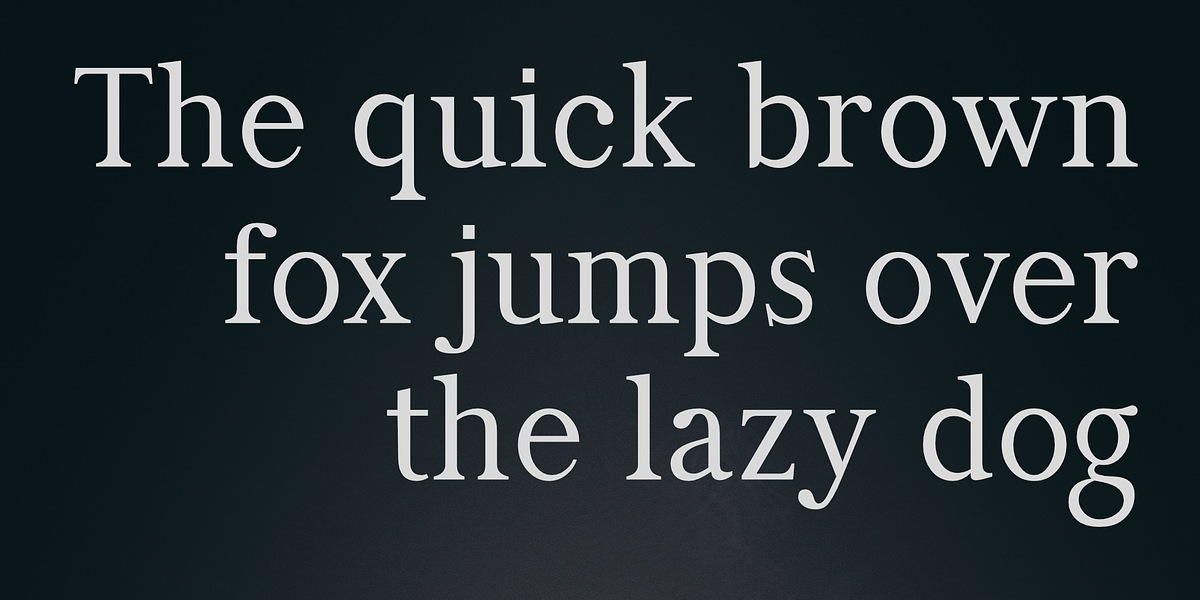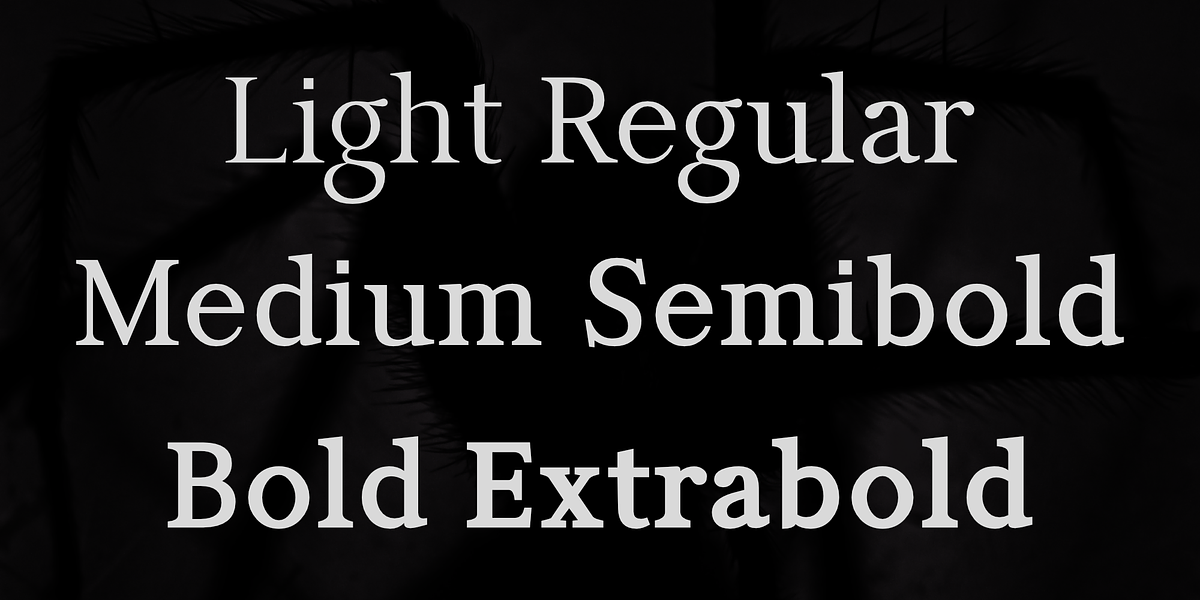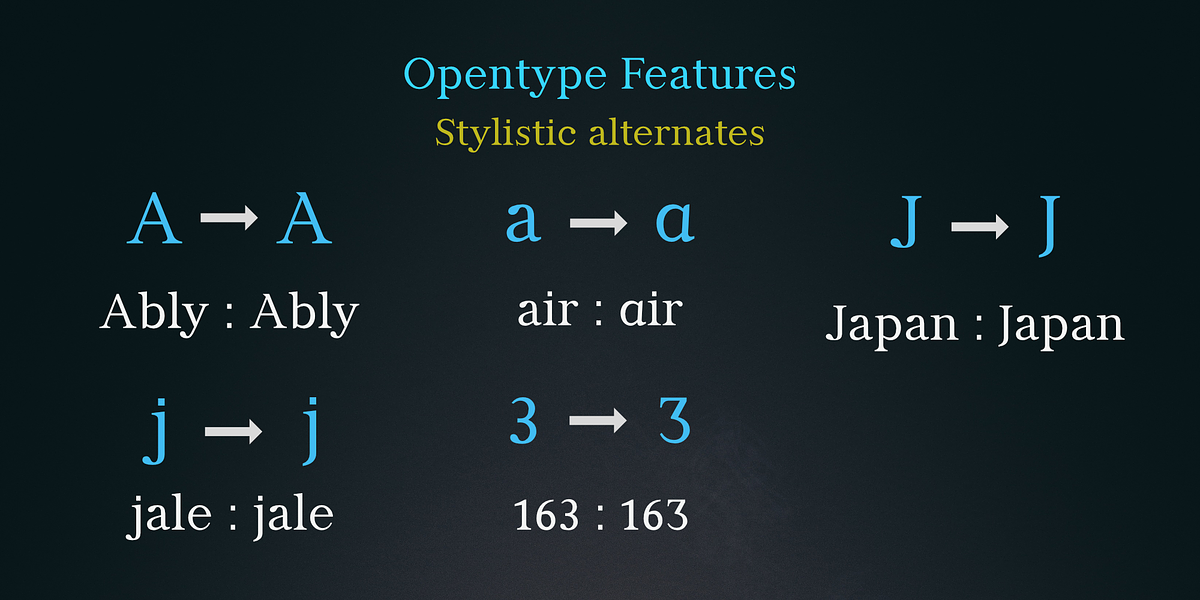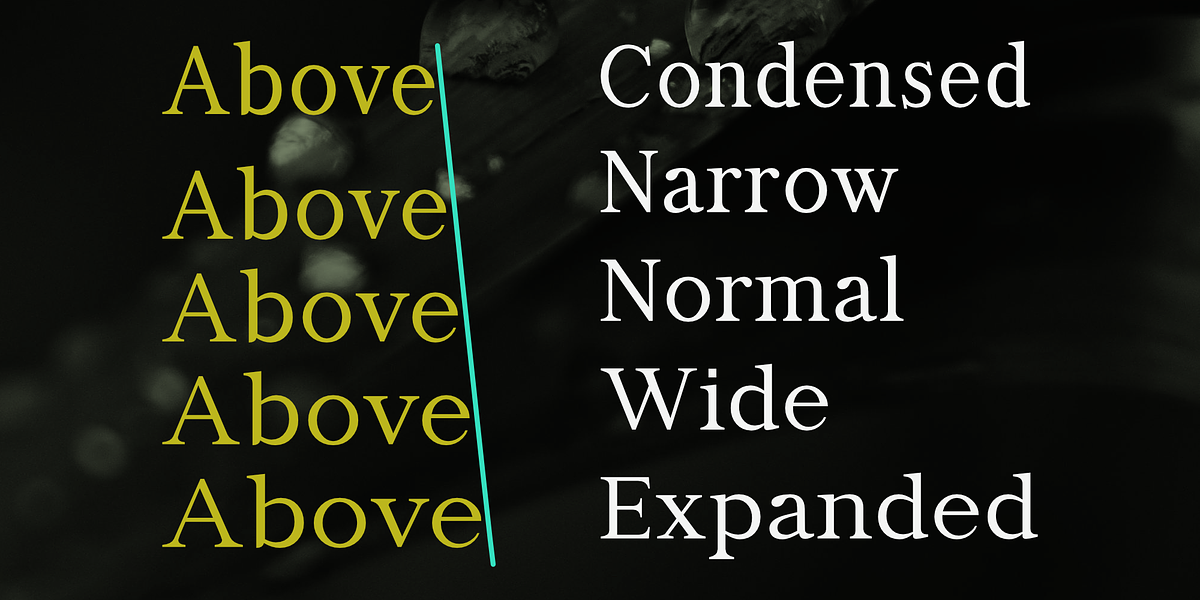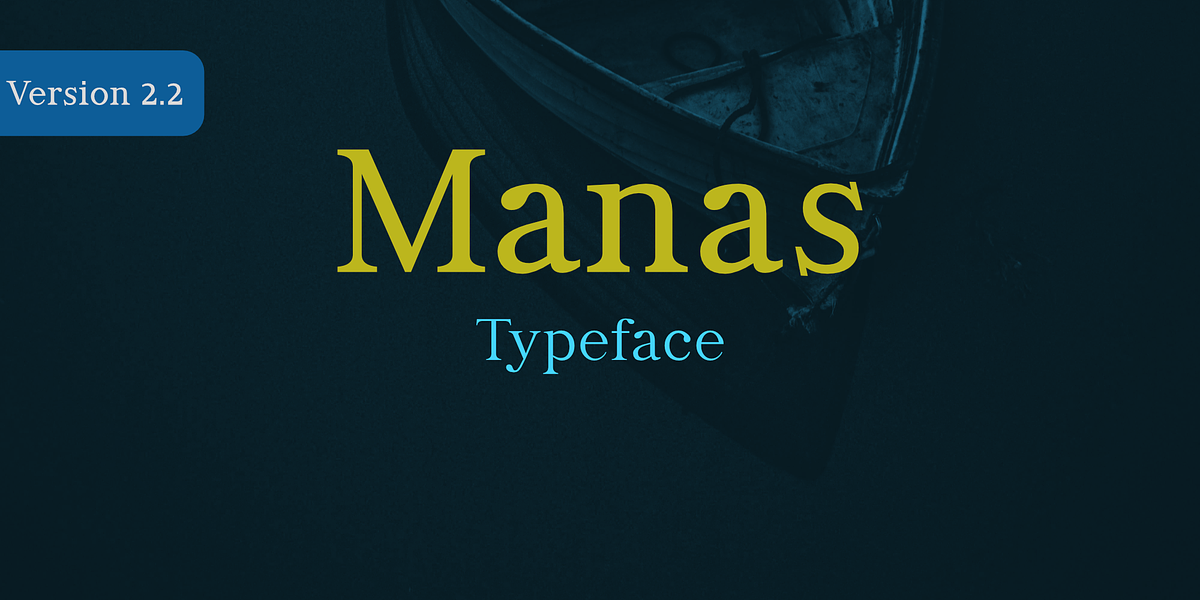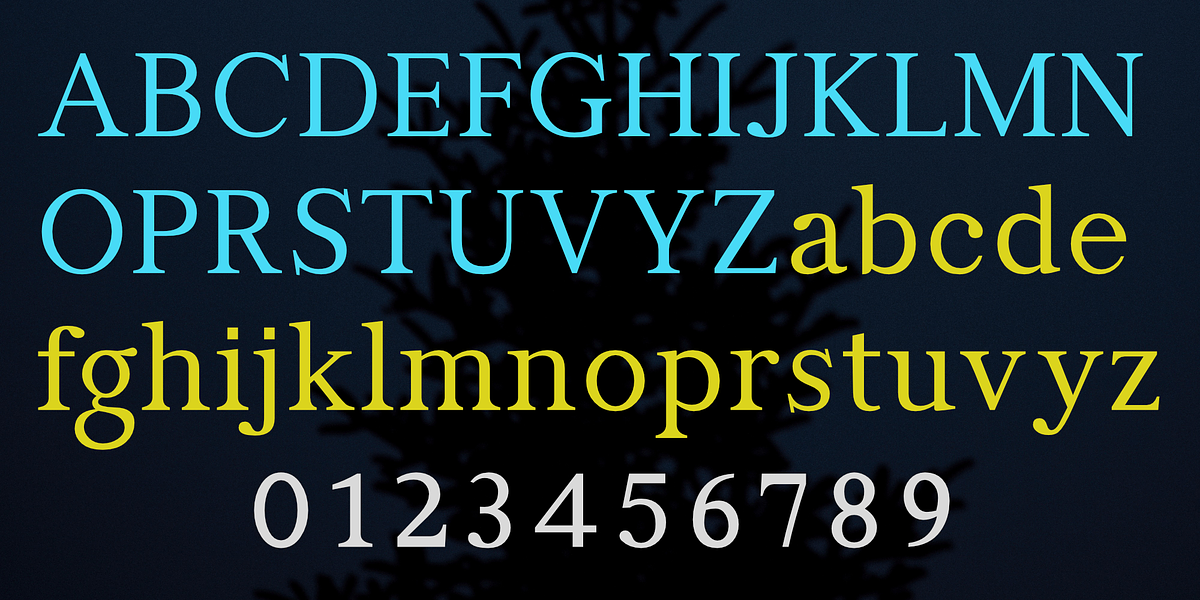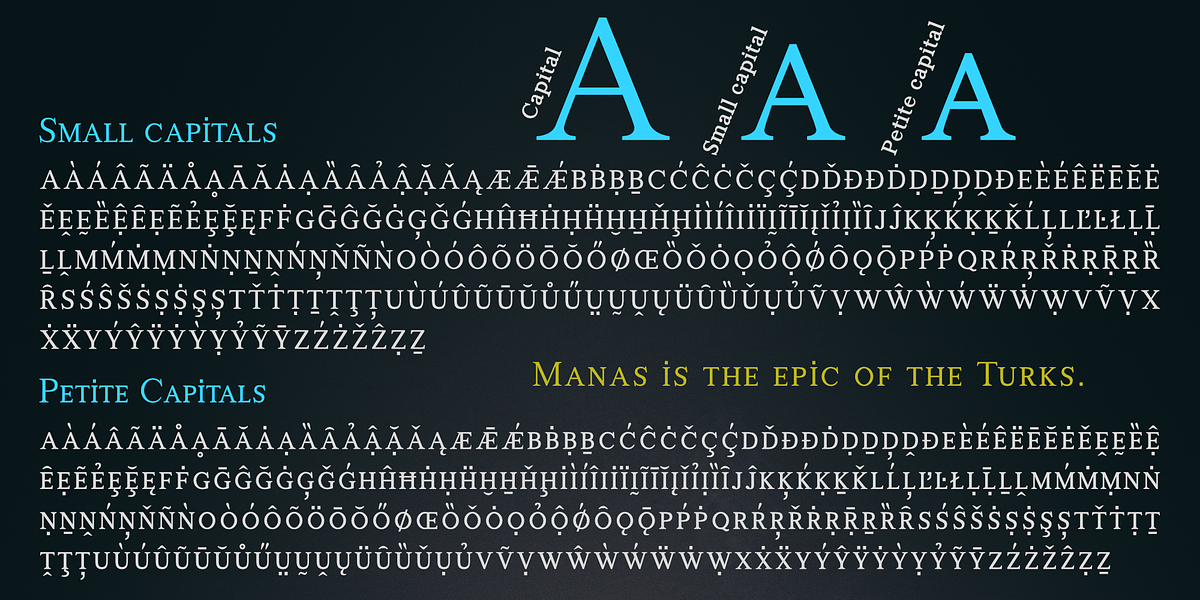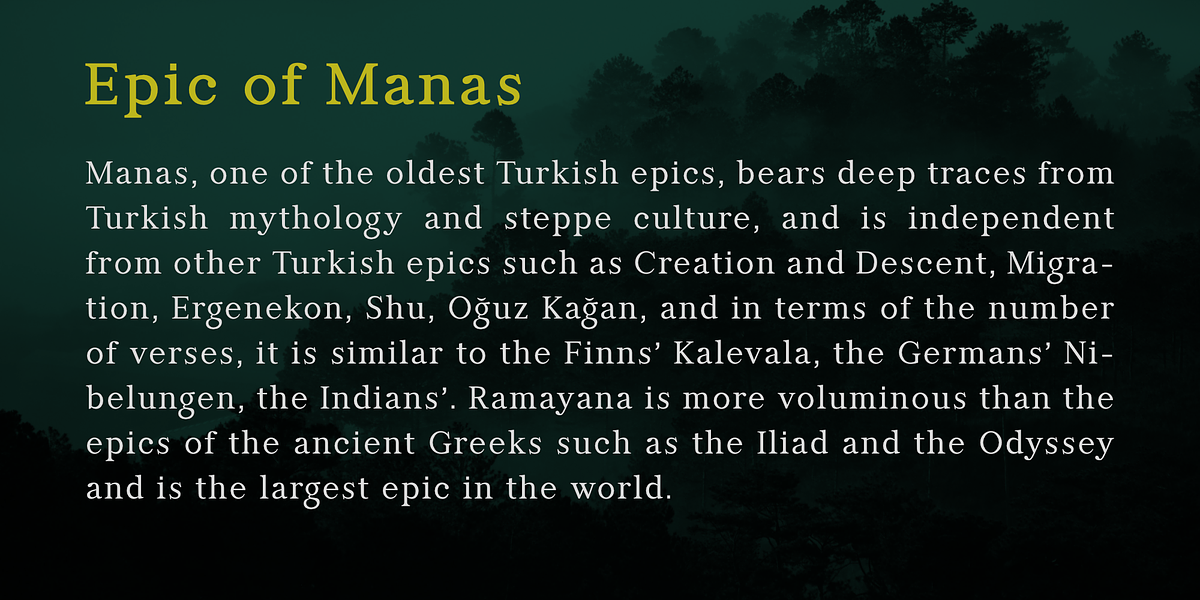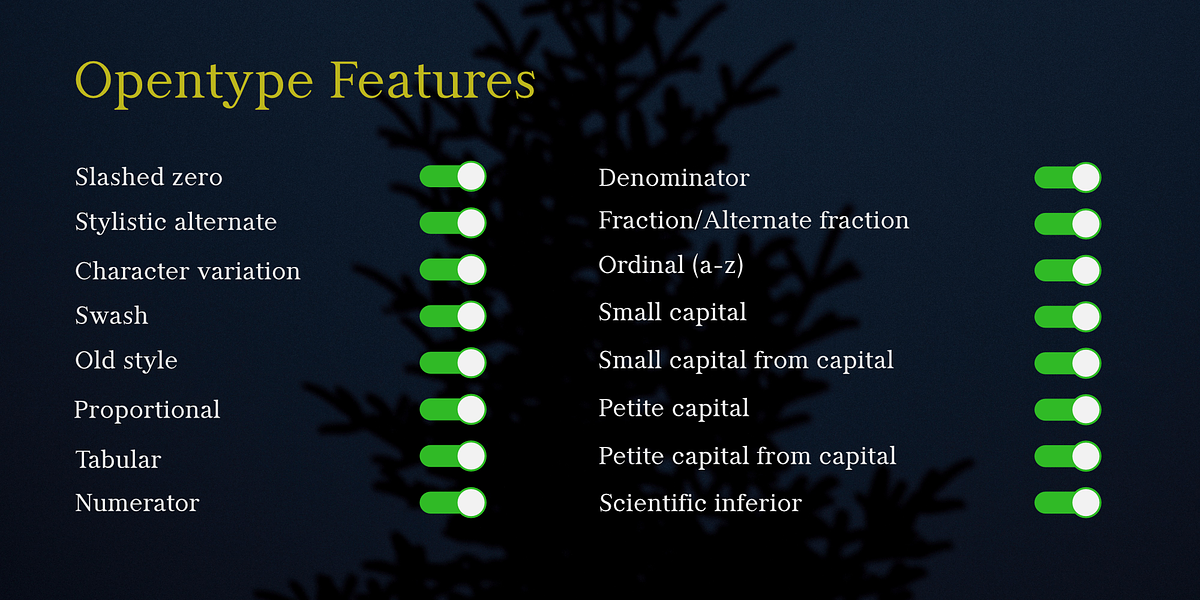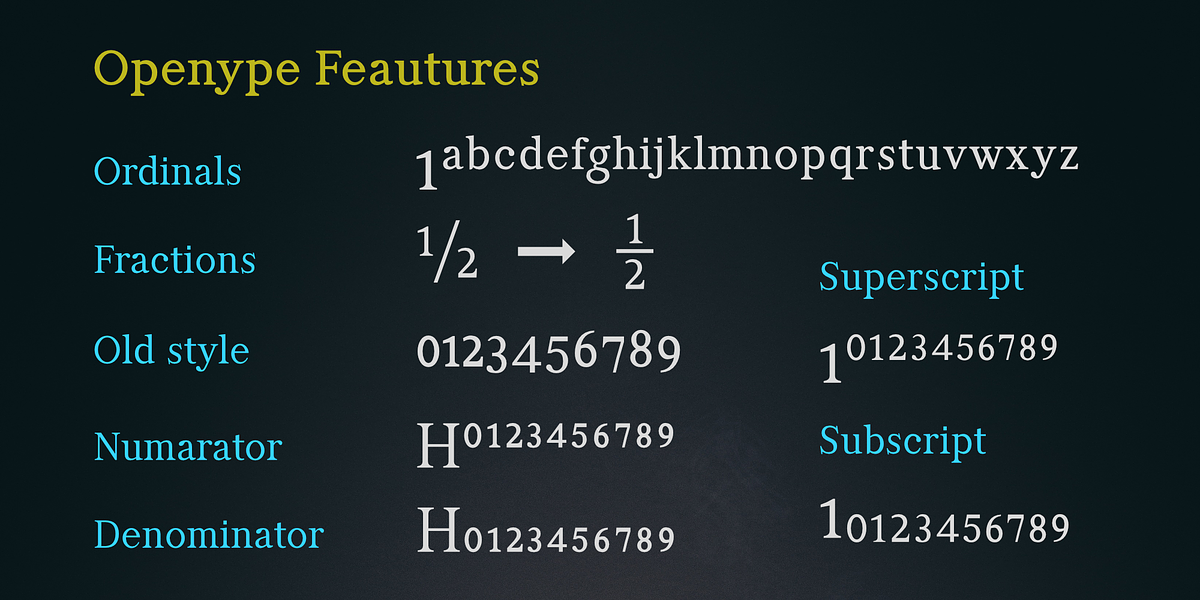
Manas
Manas is a modern serif typeface designed for versatility. It offers six weights ranging from light to extrabold and four widths: condensed, narrow, wide, and expanded. The font includes stylistic alternates, slashed zero, swashes for certain letters, and support for various typographic features like small capitals and ordinals. Its extensive feature set makes it suitable for a wide range of applications, including printed materials, digital media, and body text.